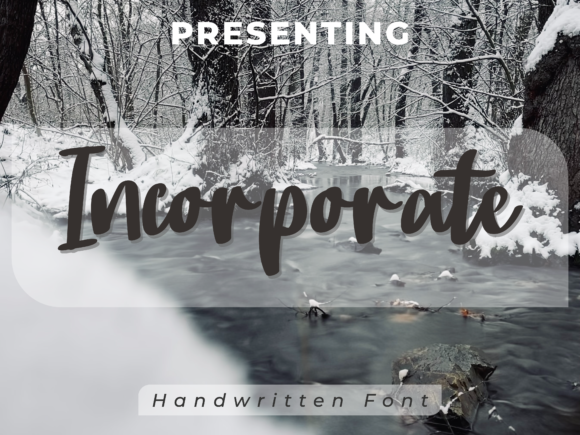
About Incorporate Font
Incorporate, a delicate and fashionable script font, emerges as a versatile and stylish addition to the realm of script fonts. Tailored for various branding projects, including logos, t-shirt printing, and creative products, Incorporate seamlessly navigates the design landscape with its delicate and fashionable charm.
The font’s delicate strokes and well-crafted characters contribute to its fashionable aesthetic. Each letter is a testament to the meticulous design process, ensuring that Incorporate exudes an air of sophistication. Its adaptability shines through, making it suitable for a plethora of contexts.
Perfectly suited for logos, Incorporate effortlessly captures attention and leaves a lasting impression. Its intricate details and refined style lend a touch of elegance to brand identities, setting them apart in a competitive visual landscape.
Incorporate finds its place in the world of apparel and merchandise with ease, particularly in the realm of t-shirt printing. The font’s fashionable flair adds a trendy and chic element, making it an ideal choice for those seeking to infuse their designs with a touch of contemporary elegance.
Across various creative projects, Incorporate stands out as an extraordinary choice. Its ability to elevate designs in diverse contexts, from marketing materials to product packaging, speaks to its versatility and timeless appeal.
In essence, Incorporate is more than a font; it’s a design statement. Its delicate nature and fashionable allure position it as a valuable asset for designers looking to create standout visuals that seamlessly blend sophistication with contemporary style.